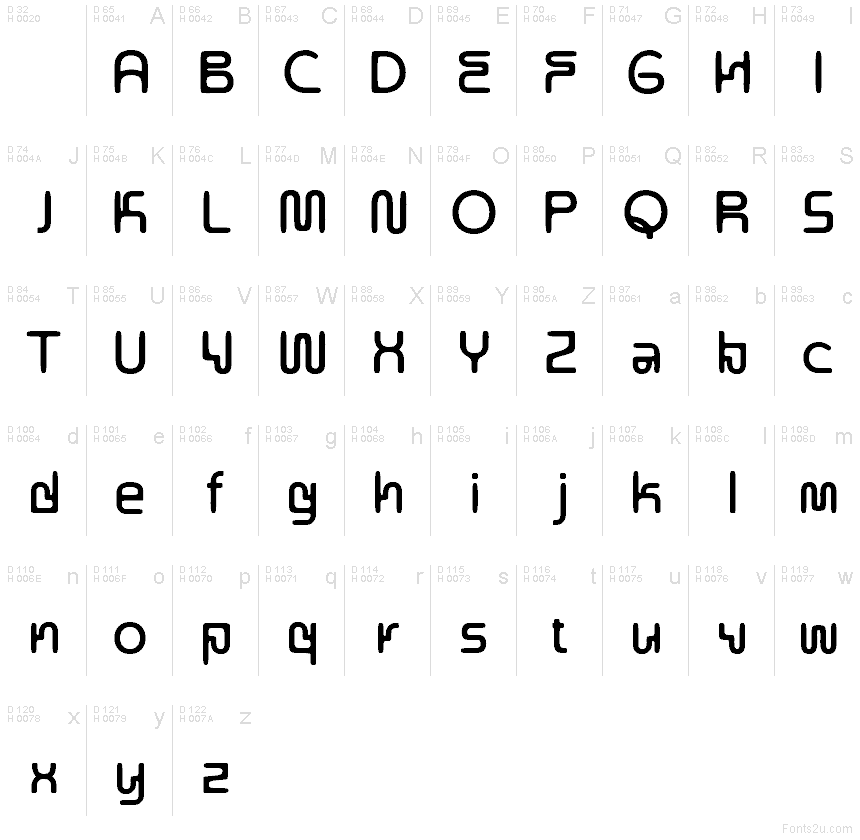
CSHectorDrawn-Regular Demo
CS Hector Drawn font by Craft Supply Co. Playful and approachable with its geometric influence and rounded terminal design, the display typeface captures a modern aesthetic. It effortlessly strikes a balance between uniformity and irregularity, resulting in a balanced structure bound to capture any user’s attention.